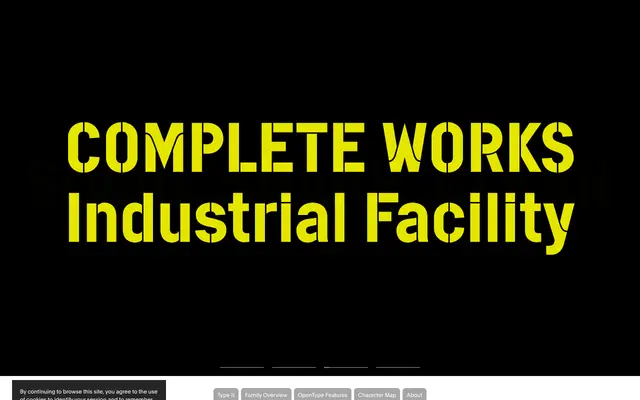
Cargo
Optimo · Gavillet & Rust · 2002
Cargo specimen from Optimo
A single-cut display stencil by Gavillet & Rust, drawn in 2002 for a Swiss music club identity and made for headlines and logos.
A geometric display stencil by Gavillet & Rust drawn for the visual identity of the 2002 Swiss National Exhibition's Cargo music club. The stencil cuts are curved rather than straight, and the rounded bridges form connected open spaces between letters that read as a single rhythm at large sizes. Loosely inspired by the logo of the stencil-machine company Marsh, the single-cut typeface stays at home in headlines, logos and identity work where its memorable silhouette can carry the design.
Optimo describes Cargo as a headline typeface with curved stencil cuts carved within a geometric sans-serif framework, with rounded bridges that form connected open spaces between letters.